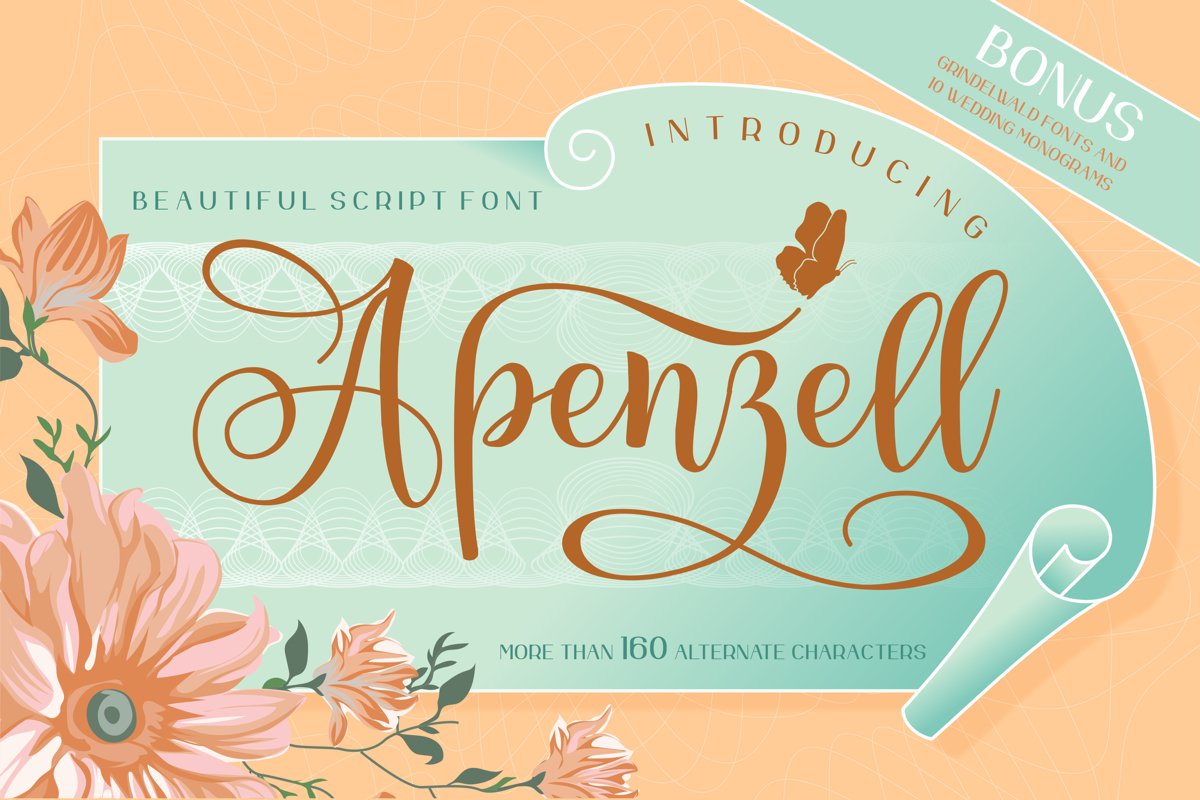
Apenzell Script | free wedding monogram logo
apenzell
Grindelwald Sans
Introducing
Apenzell script a new fresh & modern script with a handmade calligraphy style, decorative characters and a dancing baseline! So beautiful on invitation like greeting cards, branding materials, business cards, quotes, posters, and more!!
(More Than 160 Alternate Characters)
- Multilingual support - spread your message globally AÀÁÂÃÄÅCÇDÐEÈÉÊËIÌÍÎÏNÑOØÒÓÔÕÖUÙÜÚÛWYÝŸÆßÞþ